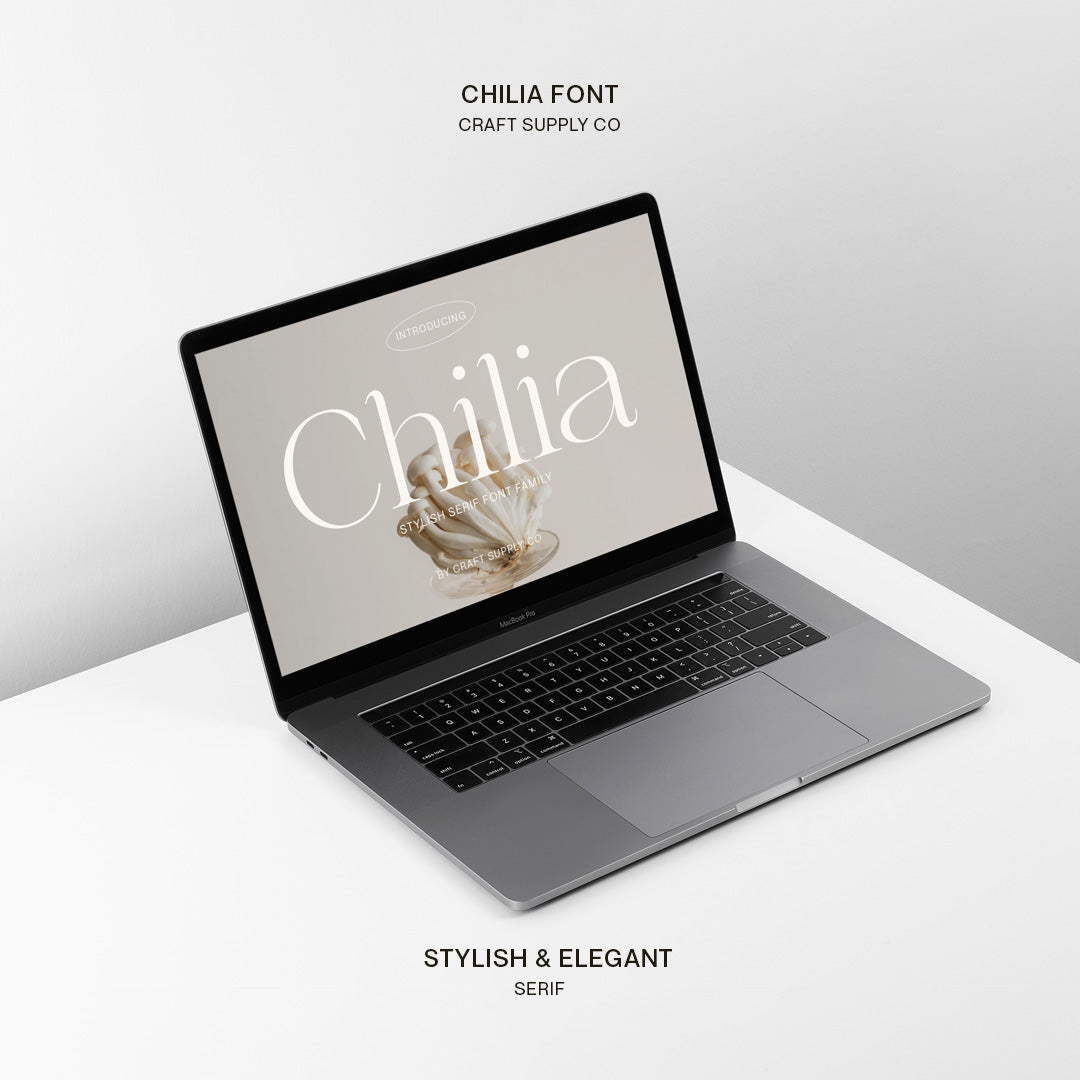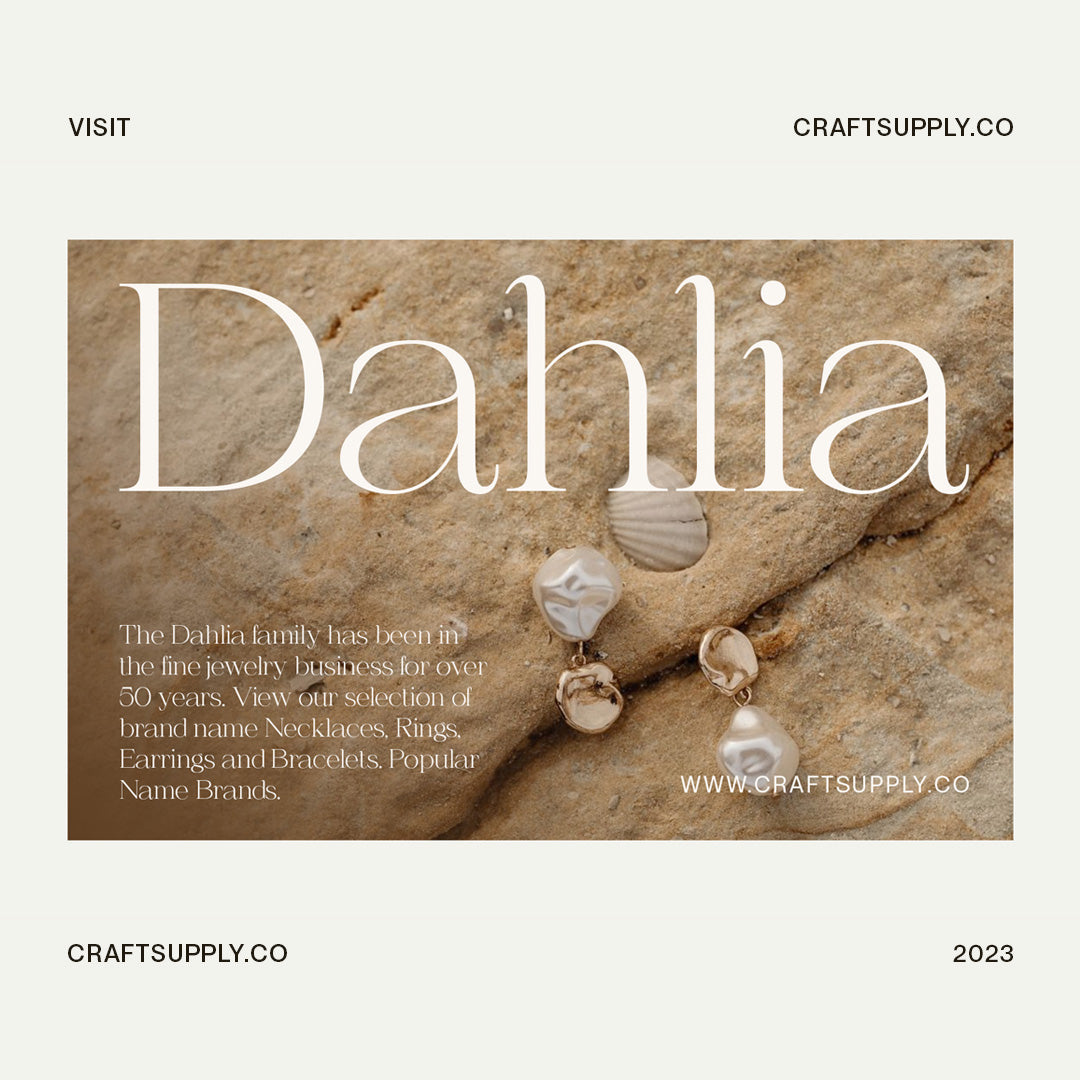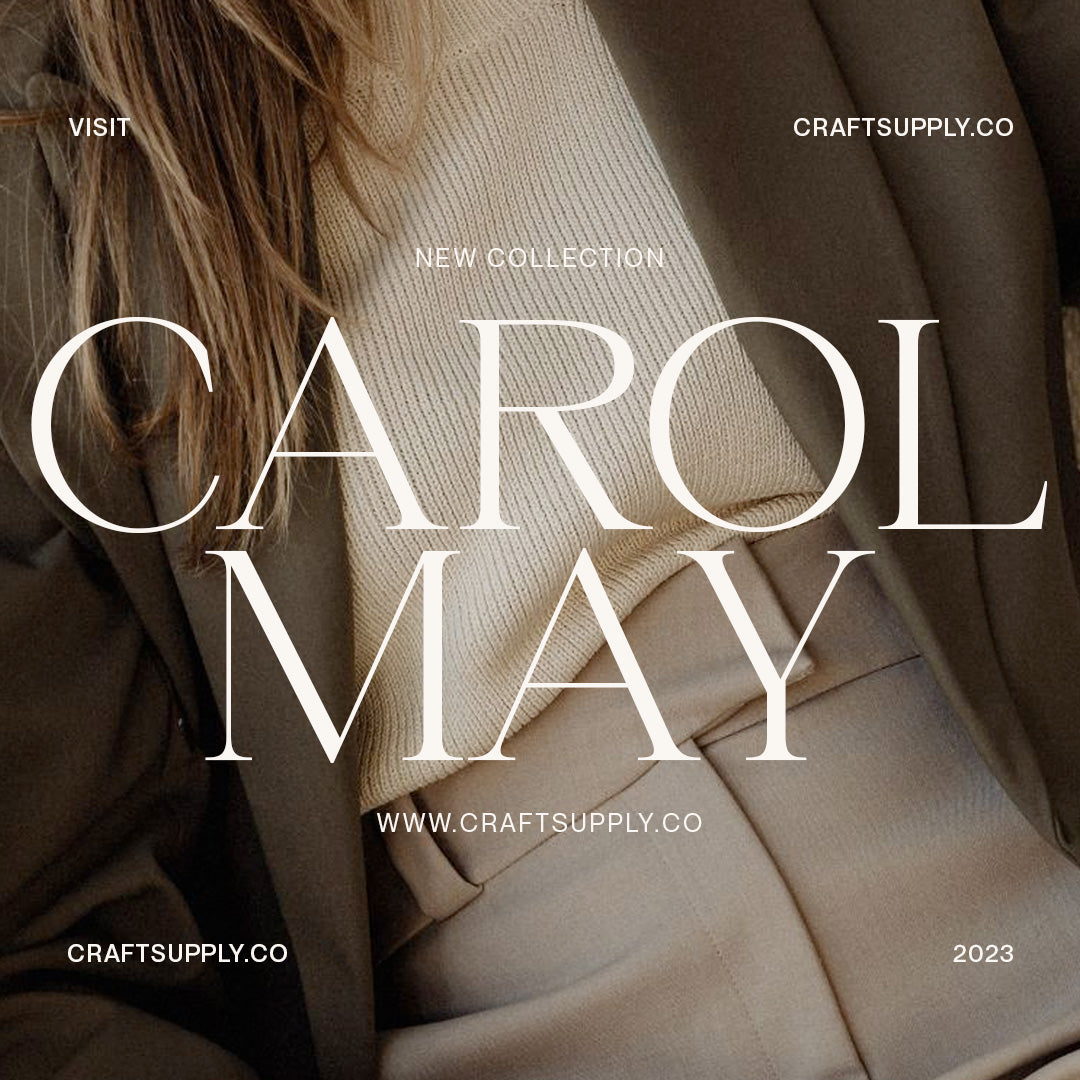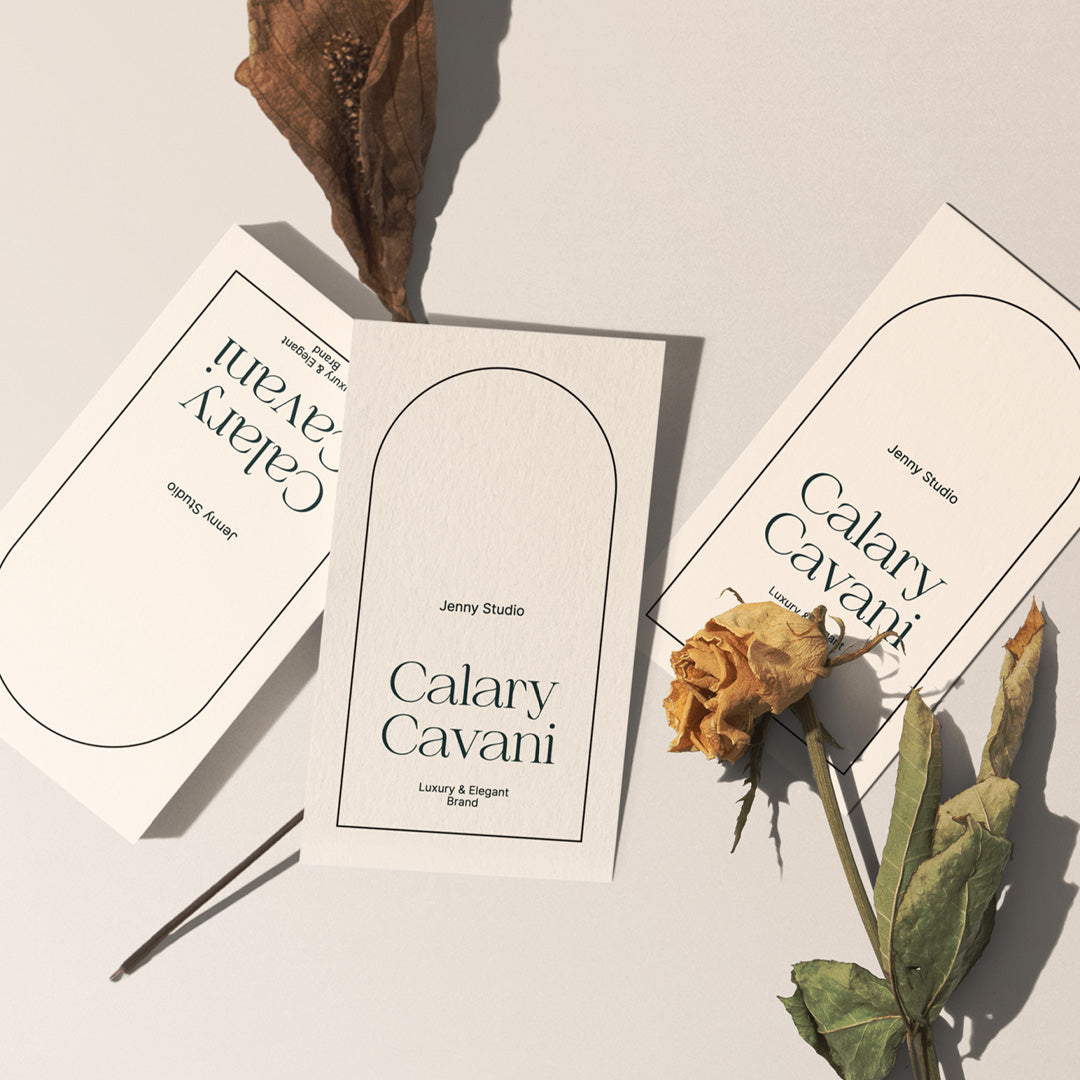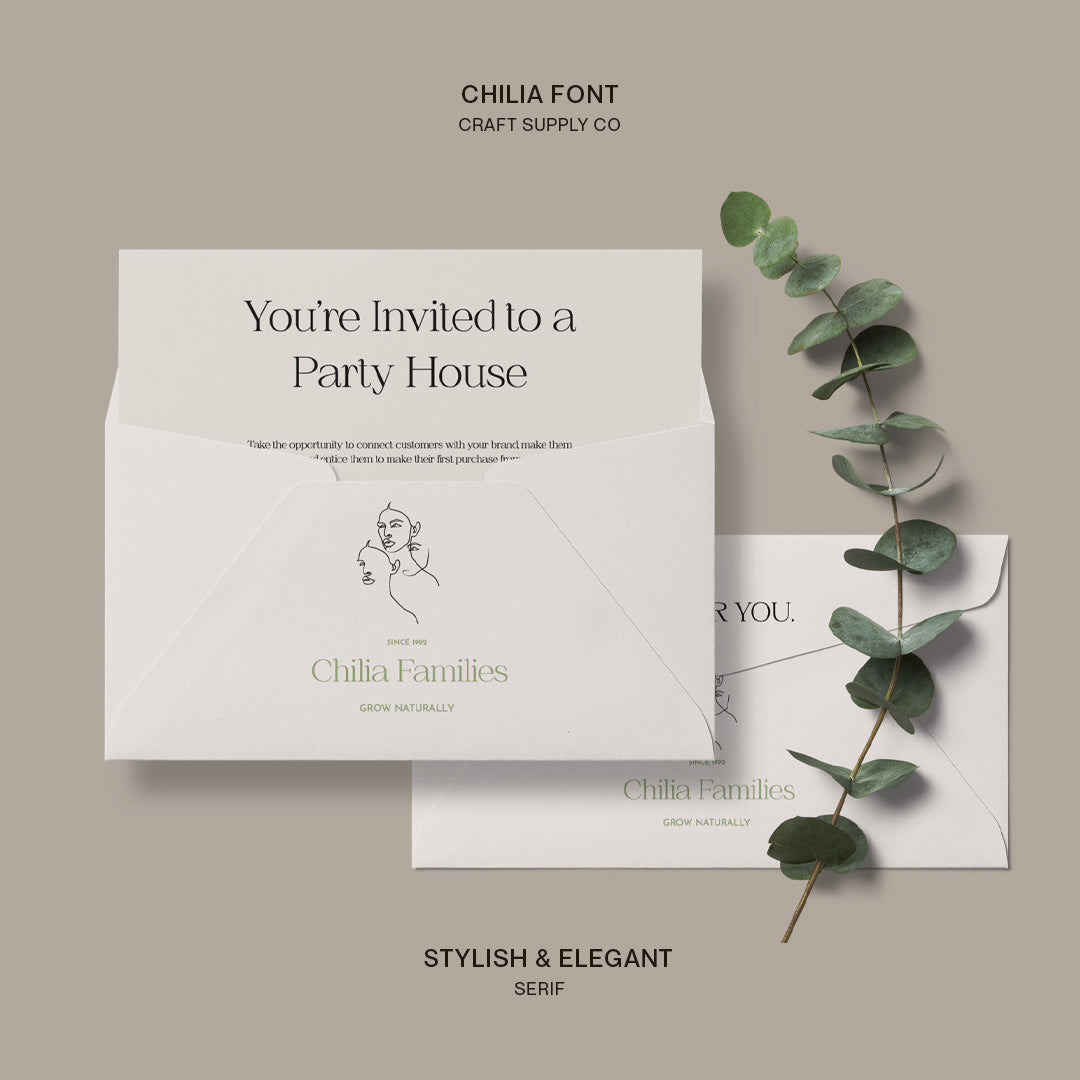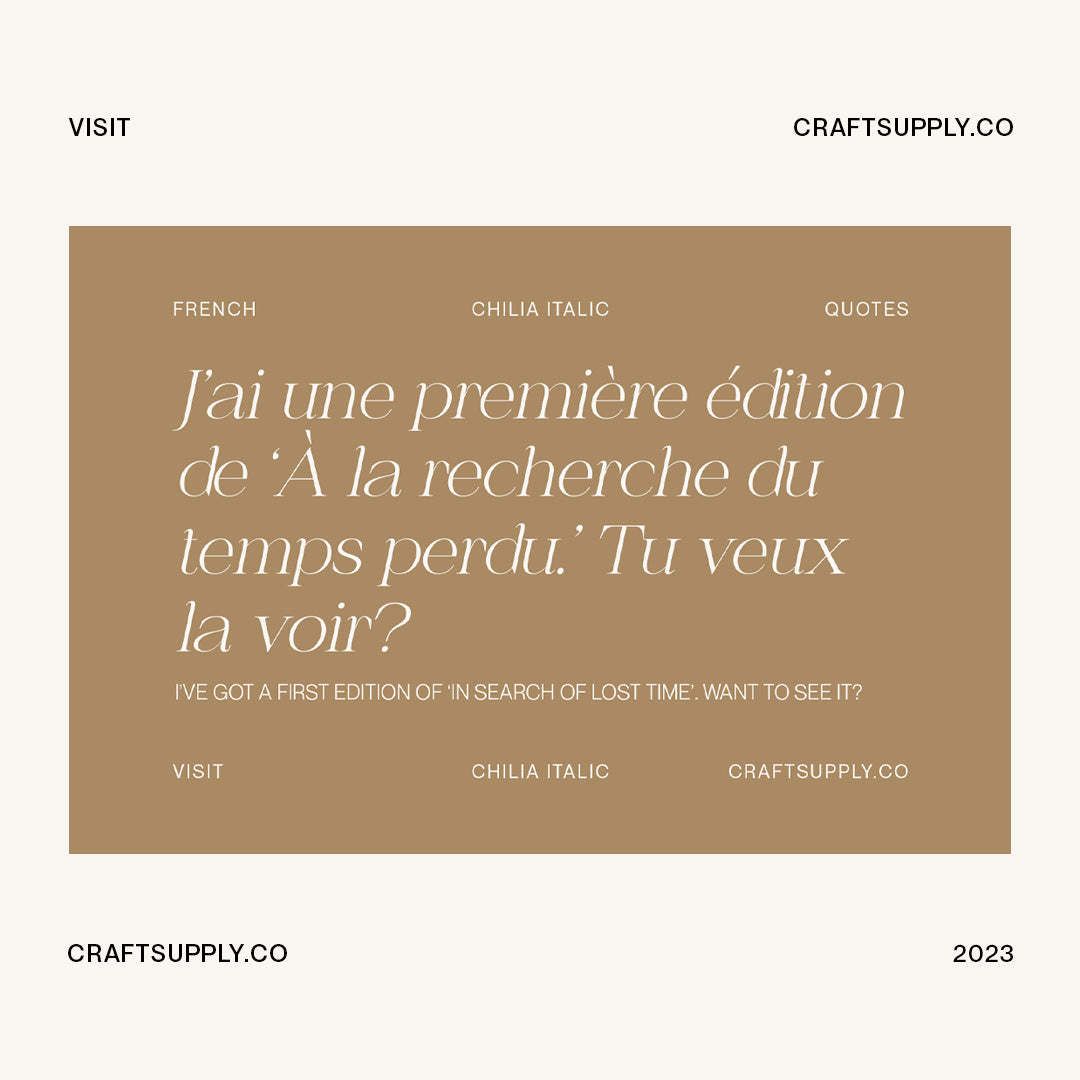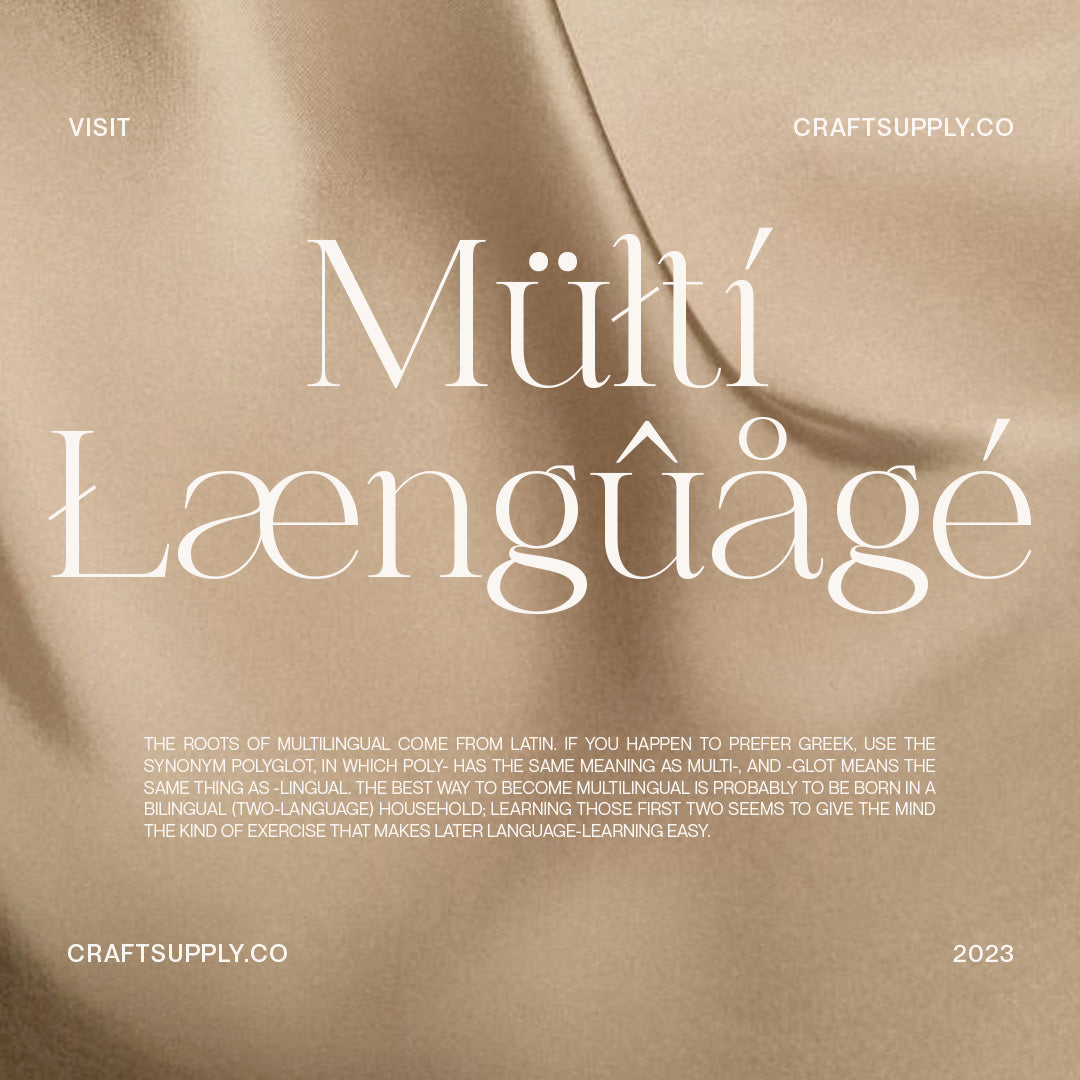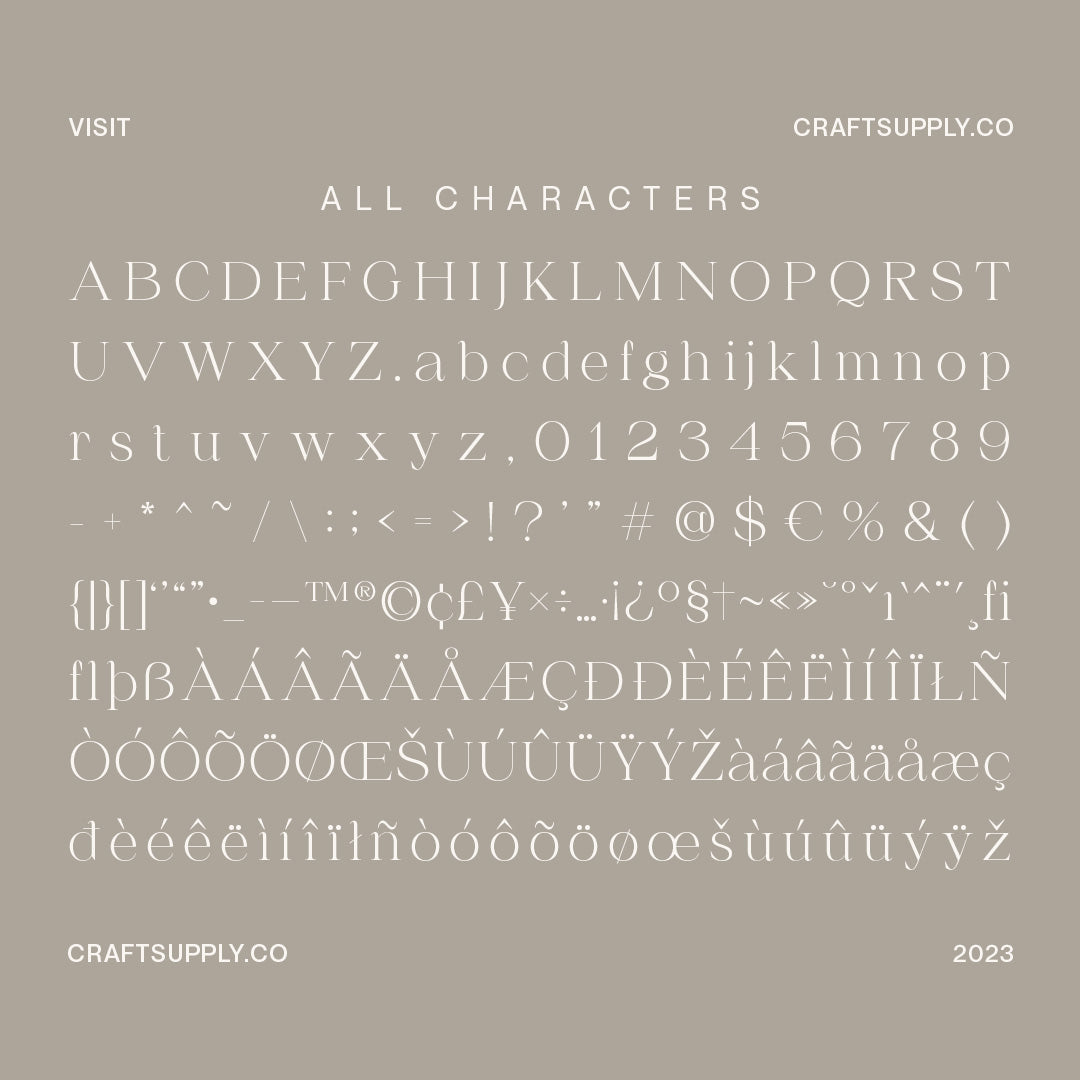
Chilia – Stylish Serif Font
Chilia is a stylish serif font where contemporary upper serifs meet a feminine allure, making it ideal for beauty and display purposes. With its unique blend of modern and elegant features, Chilia adds a touch of sophistication with eye-catching presence that perfect for captivating displays that demand attention.
This typeface is ideal for greeting card, packaging, brand identity, poster, or any purpose to make your design project look eye catching and trendy. Feel free to play with this typeface!
Chilia is a stylish serif font that combines contemporary upper serifs with a feminine touch, featuring both Regular and Italic styles. It includes uppercase and lowercase letters, numerals, punctuation, multilingual accents, and is PUA encoded for easy access to special characters.